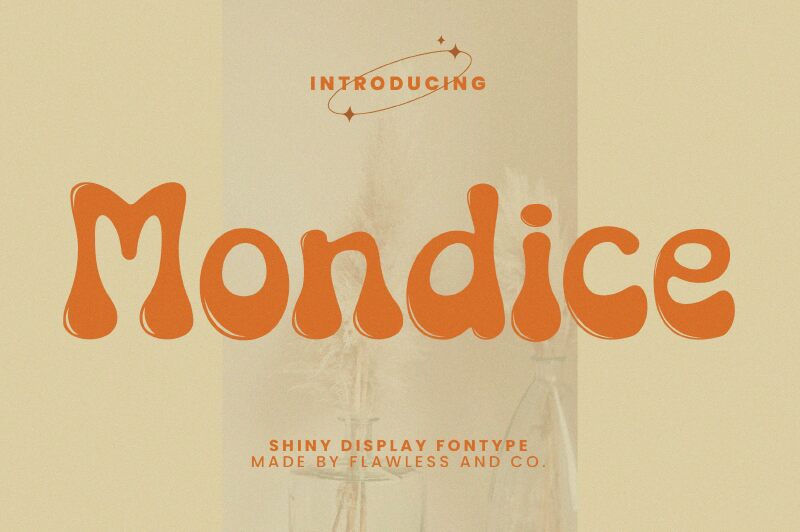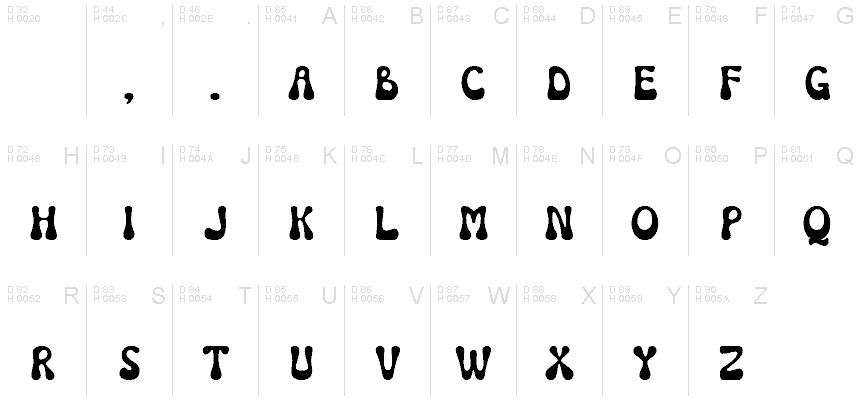
Mondice Regular
Mondice font by Achmad Yani of Flawless and co. is a groovy display font that captures the essence of the 1960s psychedelic style. With organic shapes and whimsical charm, this font delivers a bold impact with each letterform. Retro influences can be found throughout Mondice giving it an unparalleled vibe. Each word gains impressive transformations as it is equipped with extravagant edges.
Achieve greatness in breakfasts, lunches, dinners menus typography or restaurant billboards. Design real estate signs or boutique storefronts all caps names to ensure the special Mondice touch which people will remember later on particularly when they see them again on wedding invitations, posters, brochures or magazine titles.